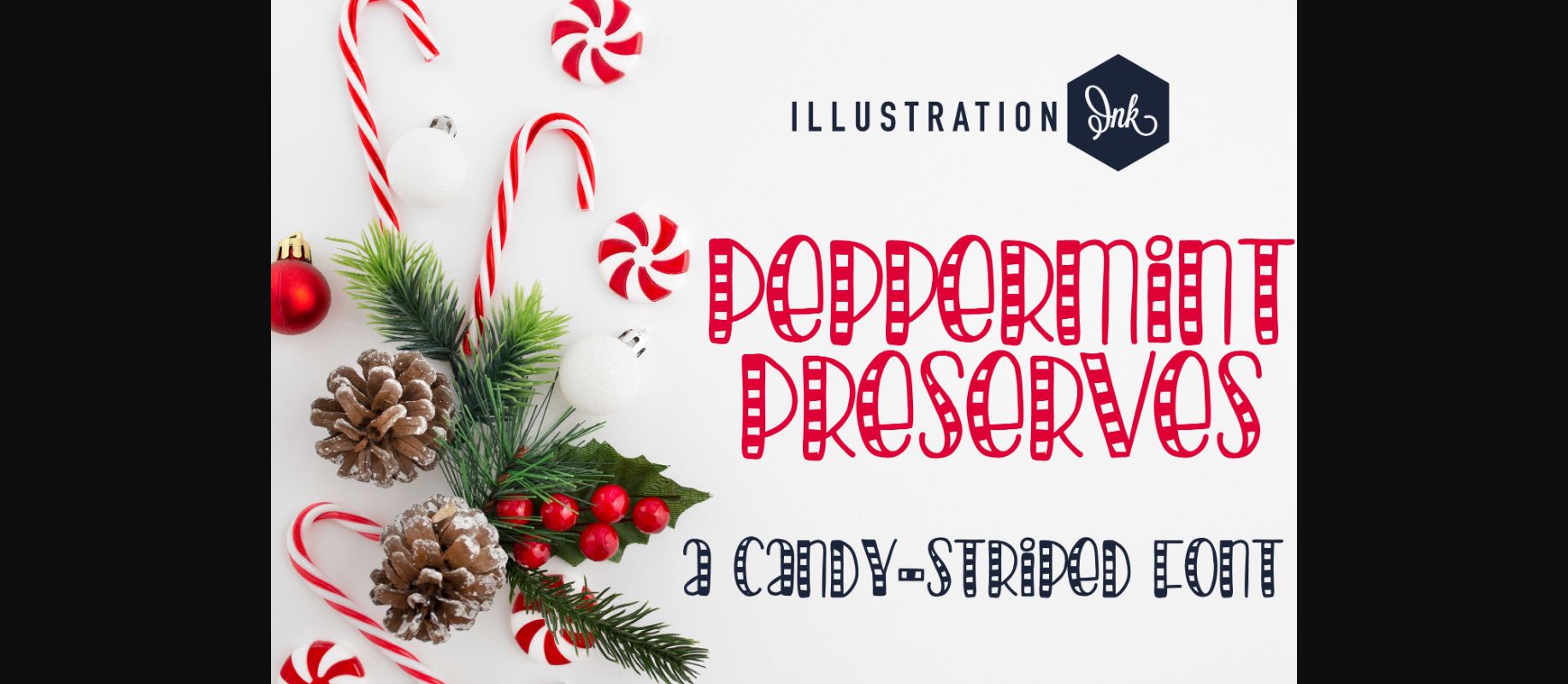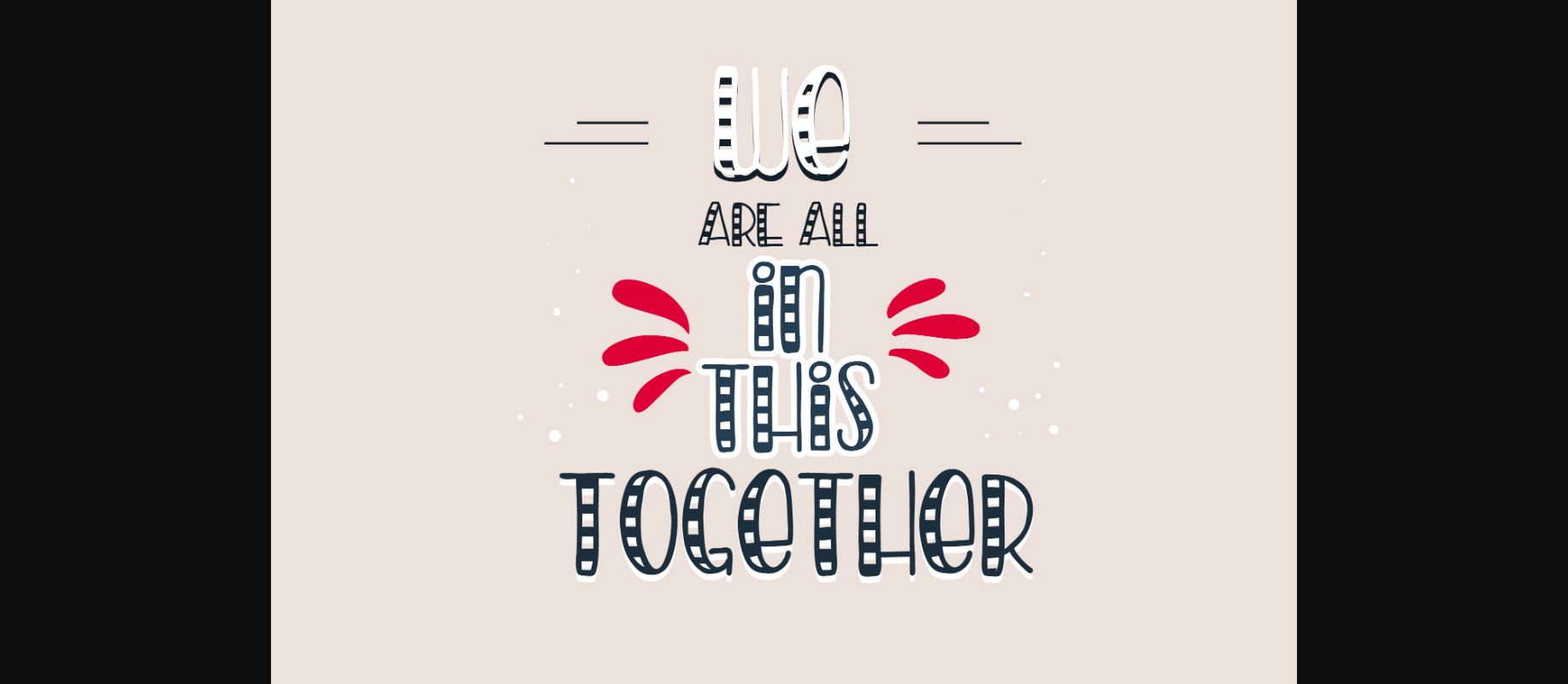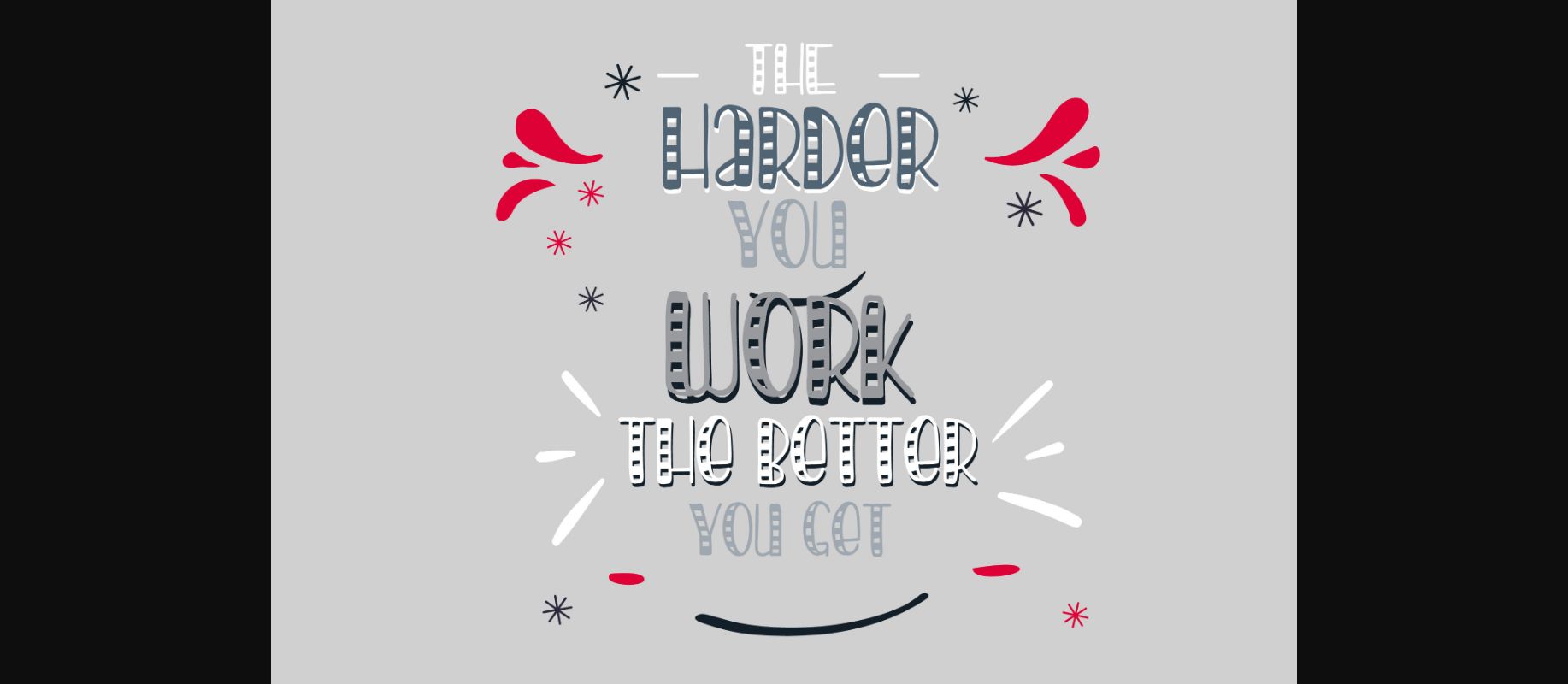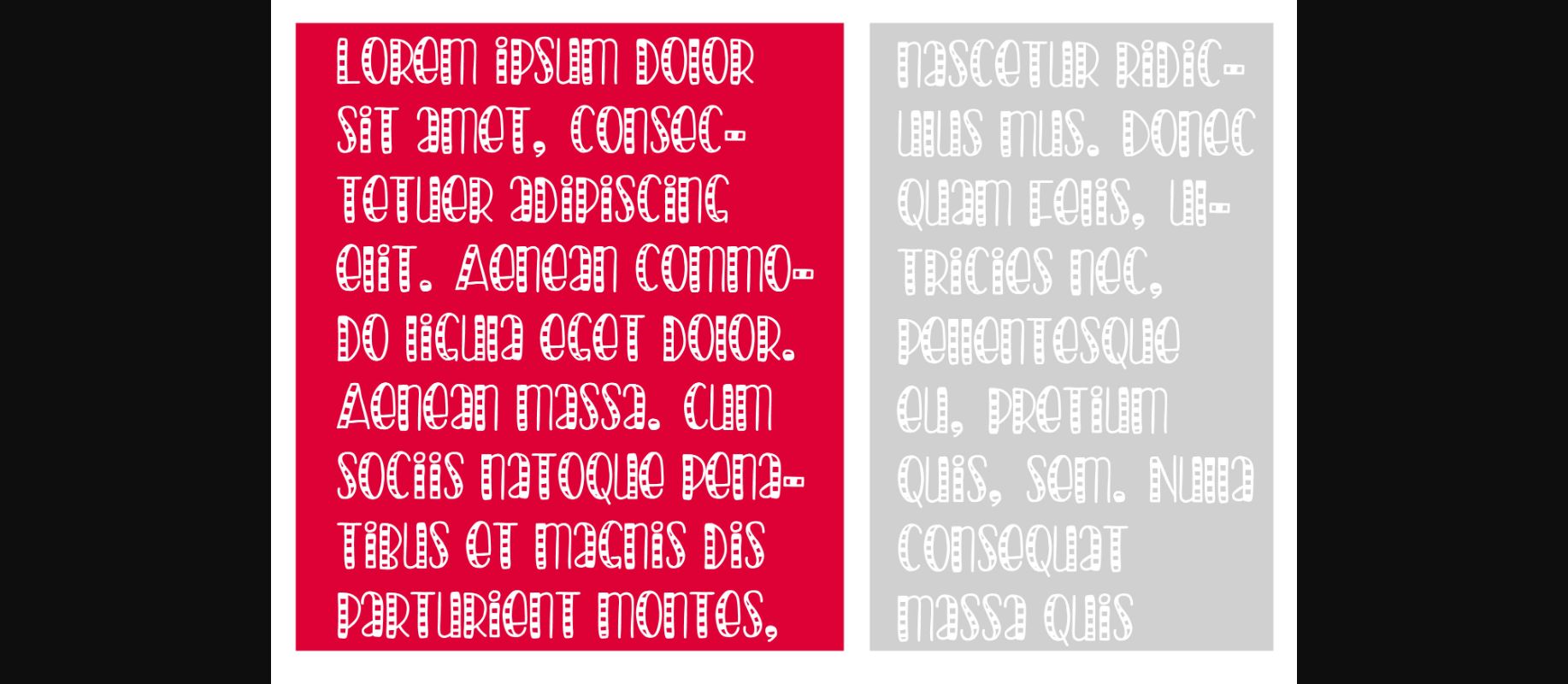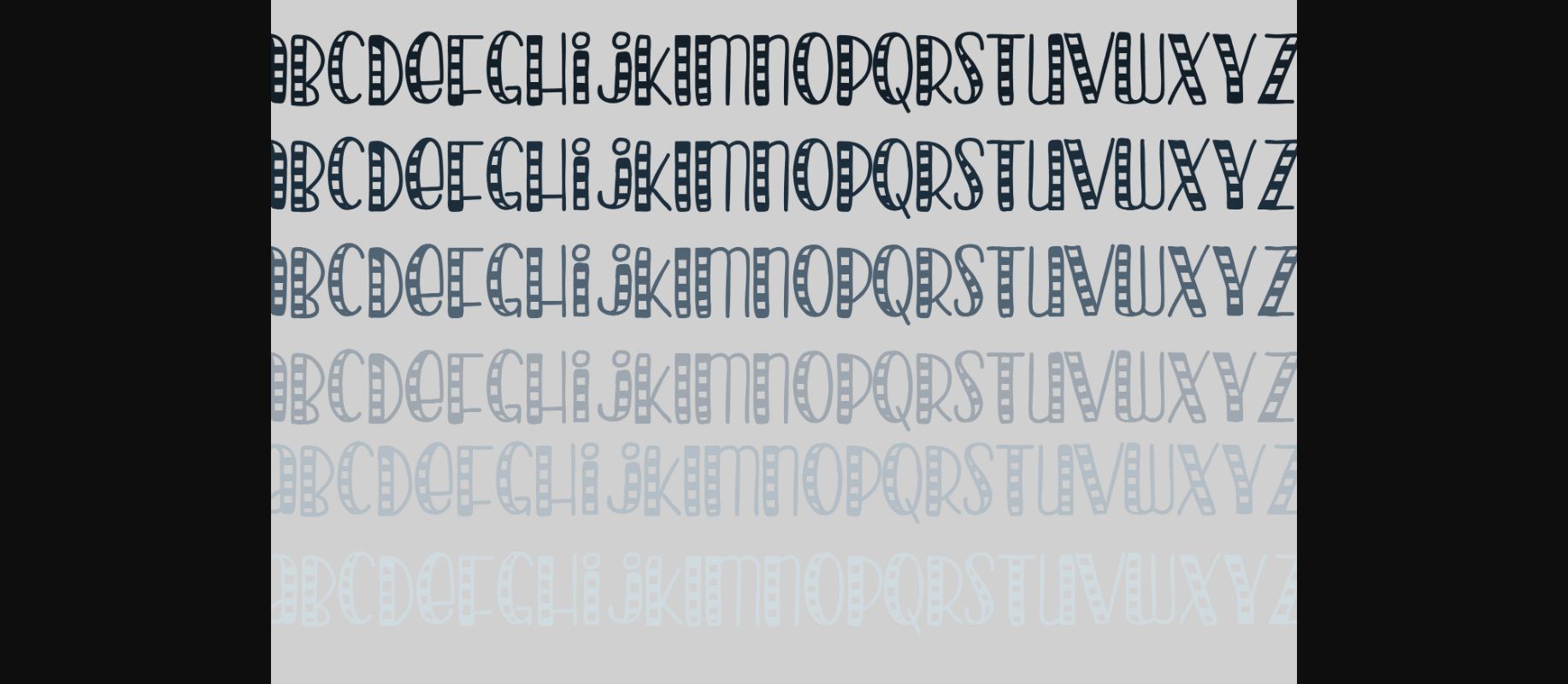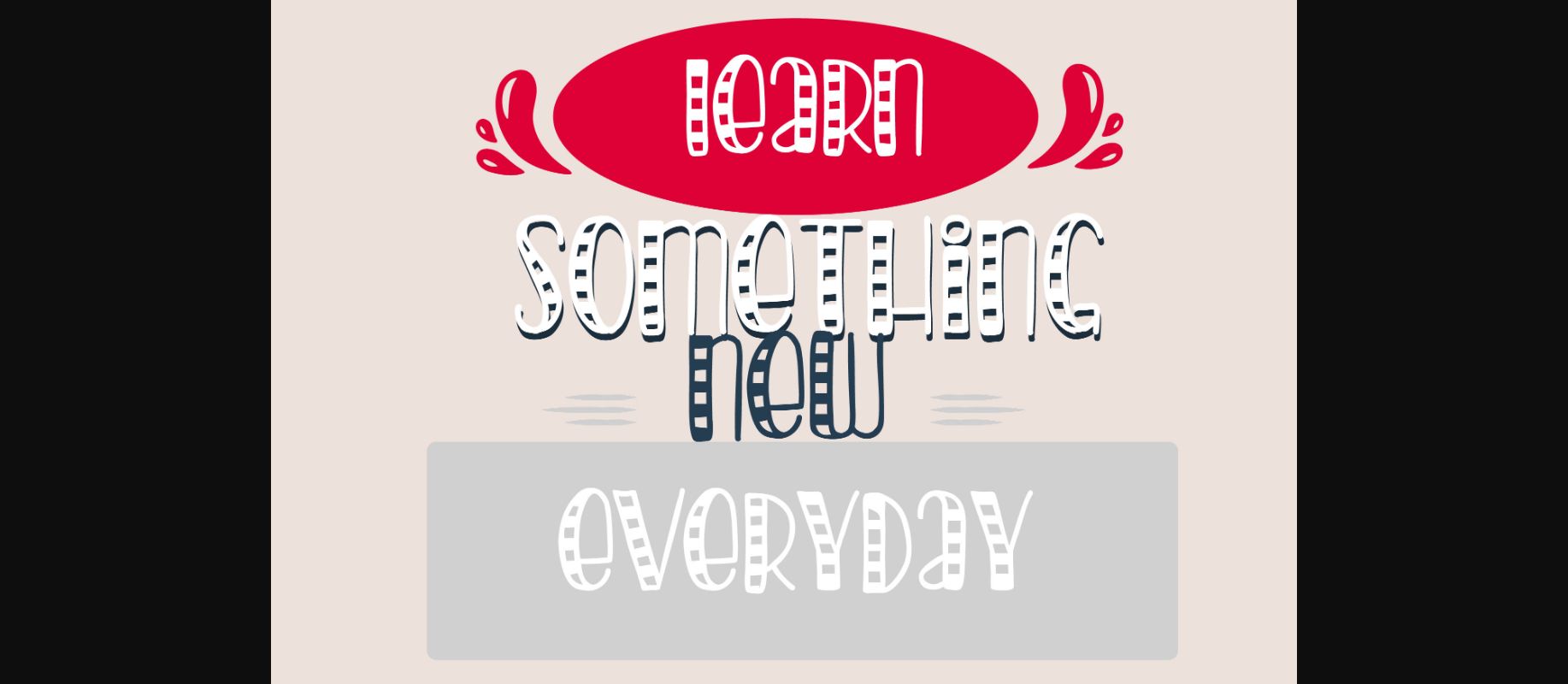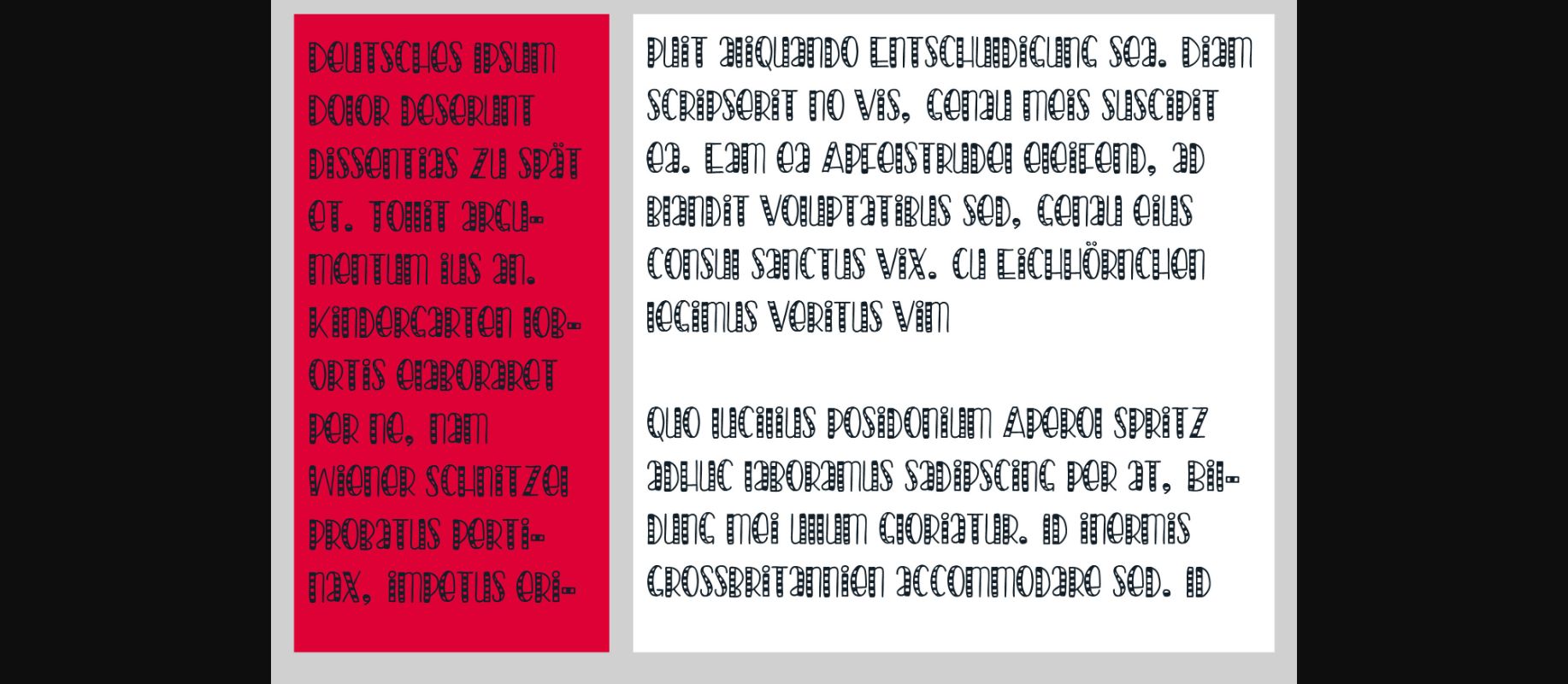
Peppermint Preserves Font
About Peppermint Preserves Font
Peppermint Preserves is a sweet and “minty” hand-written decorative font that is filled with candy stripes. Add some festive flair to your designs with this adorable font and make them outstanding!